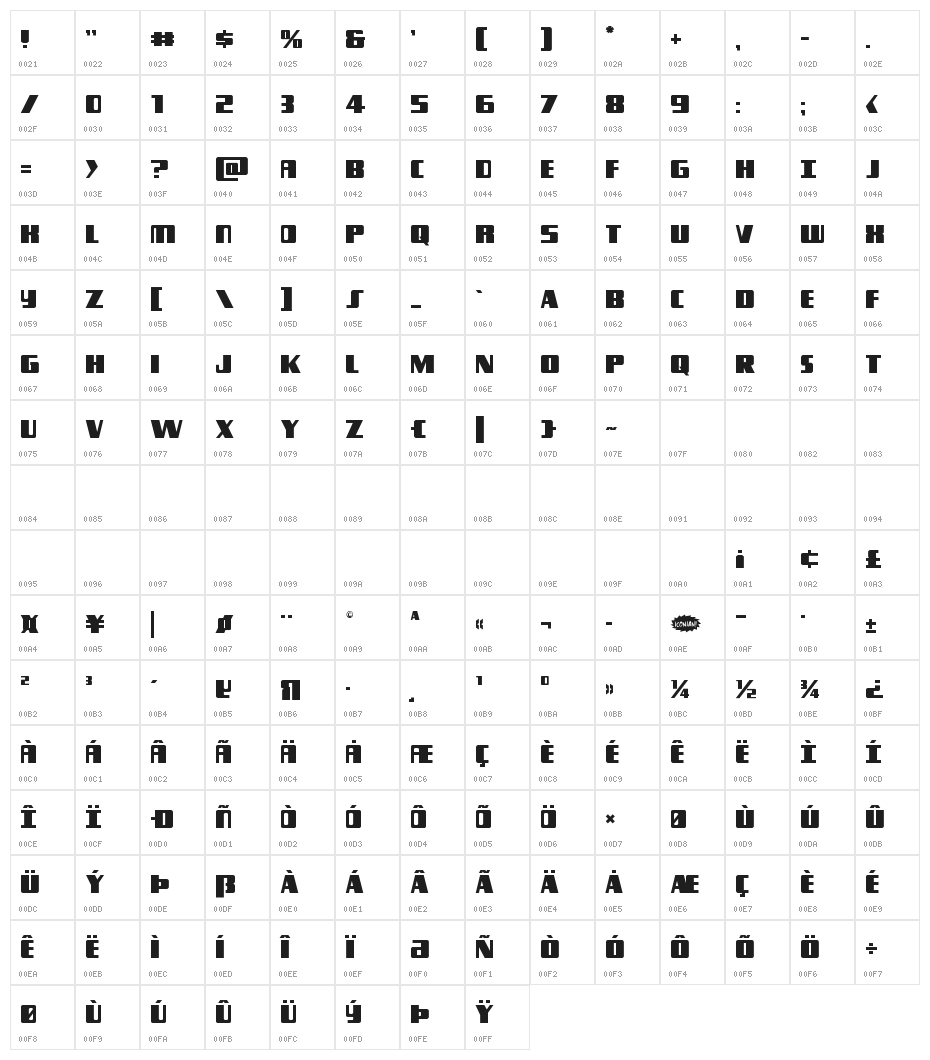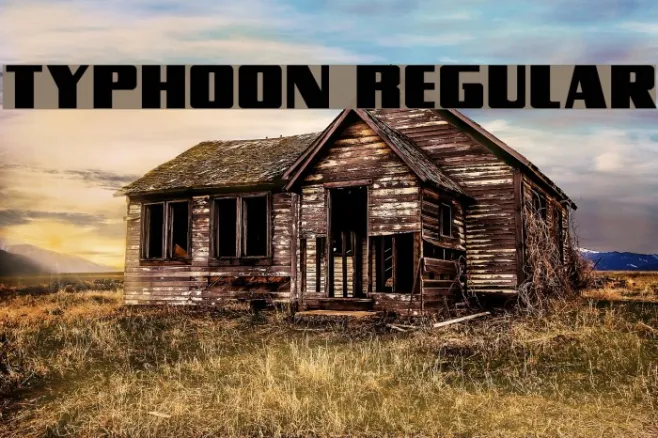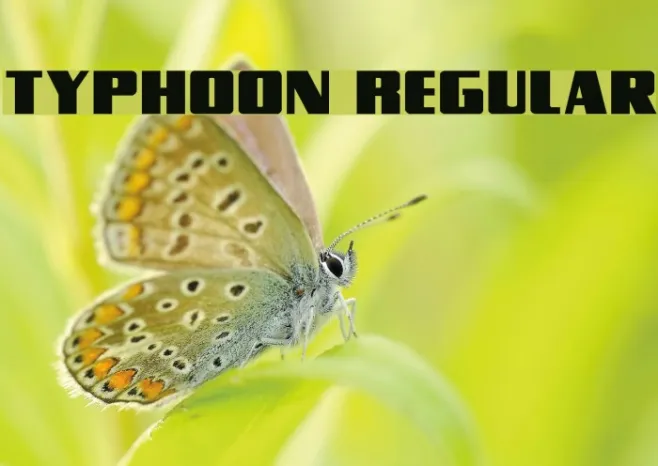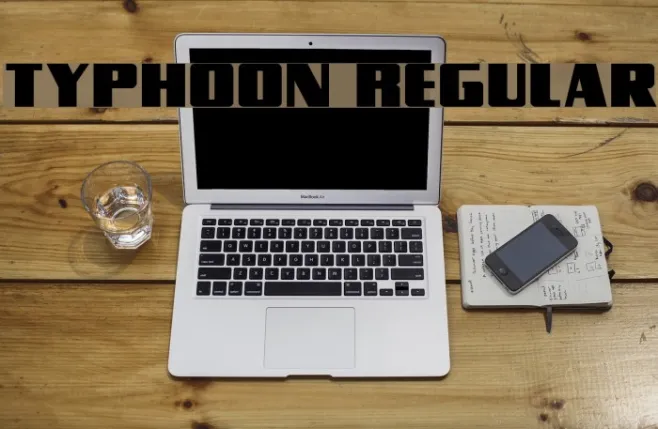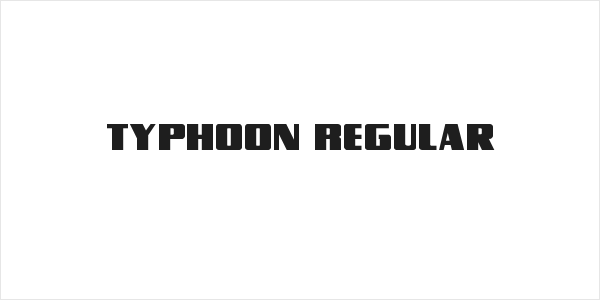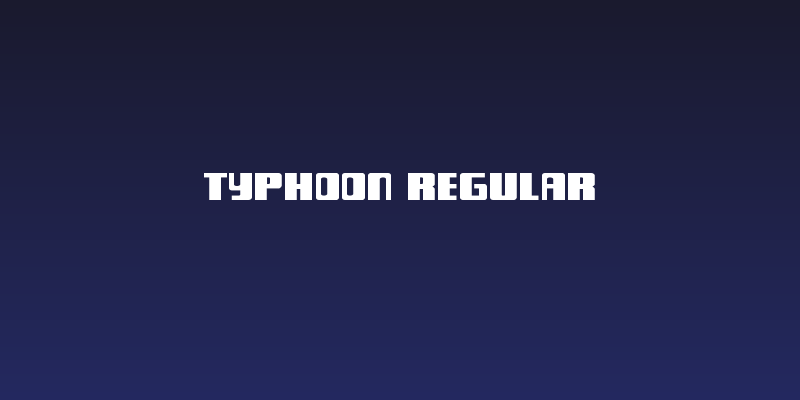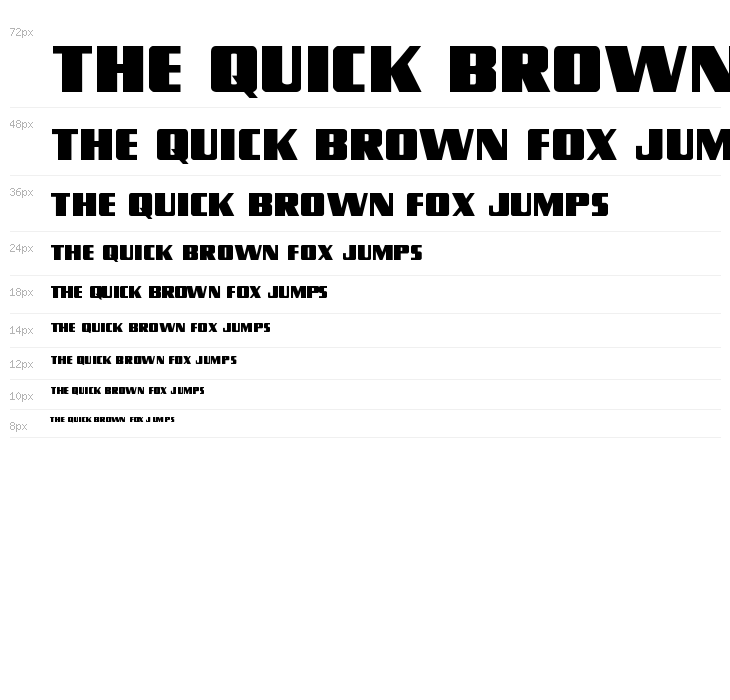
Typhoon Regular Font
Typhoon Regular Description
This bold and impactful font features a strong, geometric design with thick, uniform strokes that create a sense of power and stability. The characters are wide and blocky, with a modern aesthetic that is both striking and easily legible. The uppercase and lowercase letters maintain a consistent style, with sharp angles and clean lines that enhance the font's bold appearance. The numerals and special characters are equally robust, ensuring a cohesive look across all text elements. This font's design is ideal for making a statement, with its high contrast and solid presence.
Proposed ProjectsIdeal for headlines, posters, branding, and any project requiring a strong visual impact.